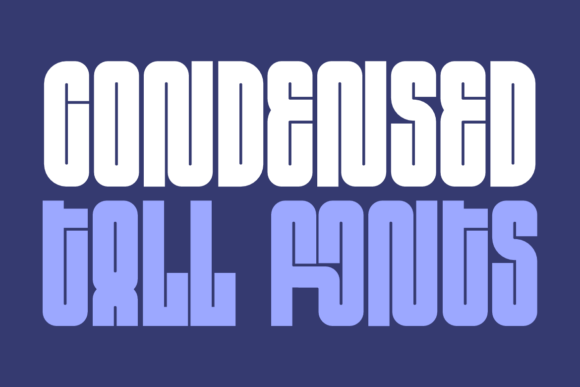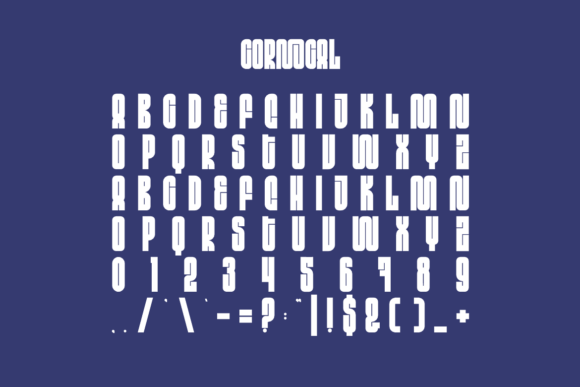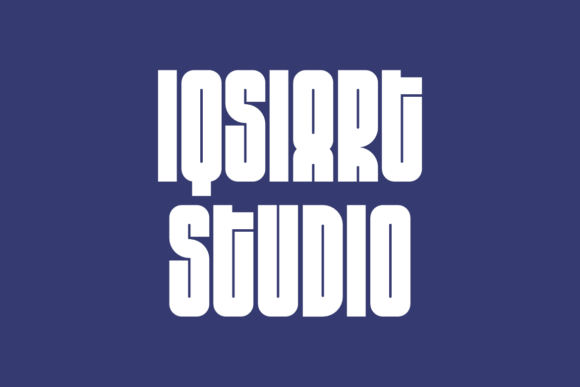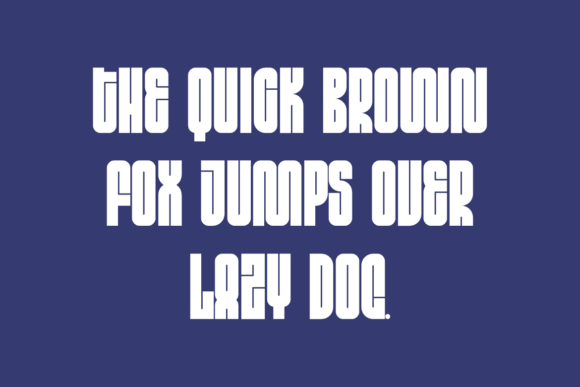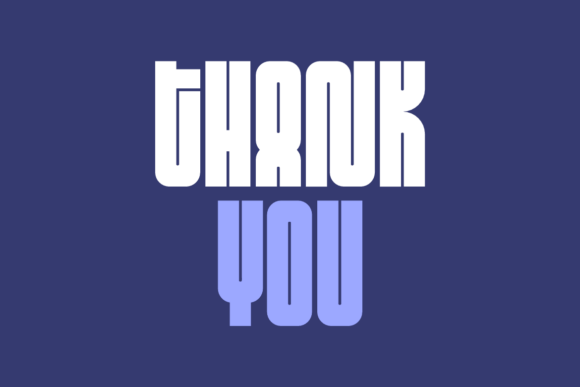
Cornocal Font: A Quirky and Versatile Display Font
Cornocal is a unique and interesting display font that has been gaining attention among designers and crafters alike. A little bit quirky, this font looks incredibly adept on a wide variety of contexts, making it a versatile addition to any design project. In this article, we’ll dive into the features and benefits of Cornocal Font, and explore how you can use it to elevate your designs.
What is Cornocal Font?
Cornocal Font is a display font that stands out from the crowd with its distinctive and quirky style. Its unique character set and irregular shapes make it a great choice for designers looking to add a touch of personality to their work. Whether you’re designing a logo, a poster, or a social media graphic, Cornocal Font is sure to grab attention and leave a lasting impression.
Key Features of Cornocal Font
- Unique and quirky style: Cornocal Font has a one-of-a-kind look that sets it apart from more traditional fonts.
- Versatile: This font can be used in a wide range of contexts, from digital designs to print materials.
- Highly legible: Despite its quirky style, Cornocal Font is surprisingly easy to read, making it perfect for headlines and titles.
- Extensive character set: Cornocal Font comes with a wide range of characters, including uppercase and lowercase letters, numbers, and punctuation marks.
Benefits of Using Cornocal Font
So why should you choose Cornocal Font for your next design project? Here are just a few benefits of using this unique font:
- Adds personality to your designs: Cornocal Font is a great way to add a touch of personality and whimsy to your designs.
- Grabs attention: The quirky style of Cornocal Font is sure to grab attention and make your designs stand out.
- Versatile: This font can be used in a wide range of contexts, from digital designs to print materials.
- Easy to use: Cornocal Font is surprisingly easy to use, even for designers who are new to working with display fonts.
How to Use Cornocal Font
So how can you use Cornocal Font in your designs? Here are a few ideas to get you started:
- Headlines and titles: Cornocal Font is perfect for headlines and titles, where its quirky style can really shine.
- Logos and branding: This font is a great choice for logos and branding, where its unique style can help you stand out from the crowd.
- Posters and flyers: Cornocal Font is a great choice for posters and flyers, where its bold and eye-catching style can really grab attention.
- Social media graphics: This font is also perfect for social media graphics, where its quirky style can help you stand out in a crowded feed.
Tips for Working with Cornocal Font
Here are a few tips for working with Cornocal Font:
- Use it sparingly: While Cornocal Font is a great choice for headlines and titles, it’s best to use it sparingly to avoid overwhelming your designs.
- Experiment with colors: This font looks great in a wide range of colors, so don’t be afraid to experiment and find the perfect hue for your design.
- Pair it with other fonts: Cornocal Font also pairs well with other fonts, so feel free to get creative and experiment with different combinations.
In conclusion, Cornocal Font is a unique and interesting display font that is sure to add a touch of personality to your designs. With its quirky style, versatile character set, and high legibility, this font is perfect for a wide range of contexts, from digital designs to print materials. Whether you’re a designer or a crafter, Cornocal Font is definitely worth checking out.